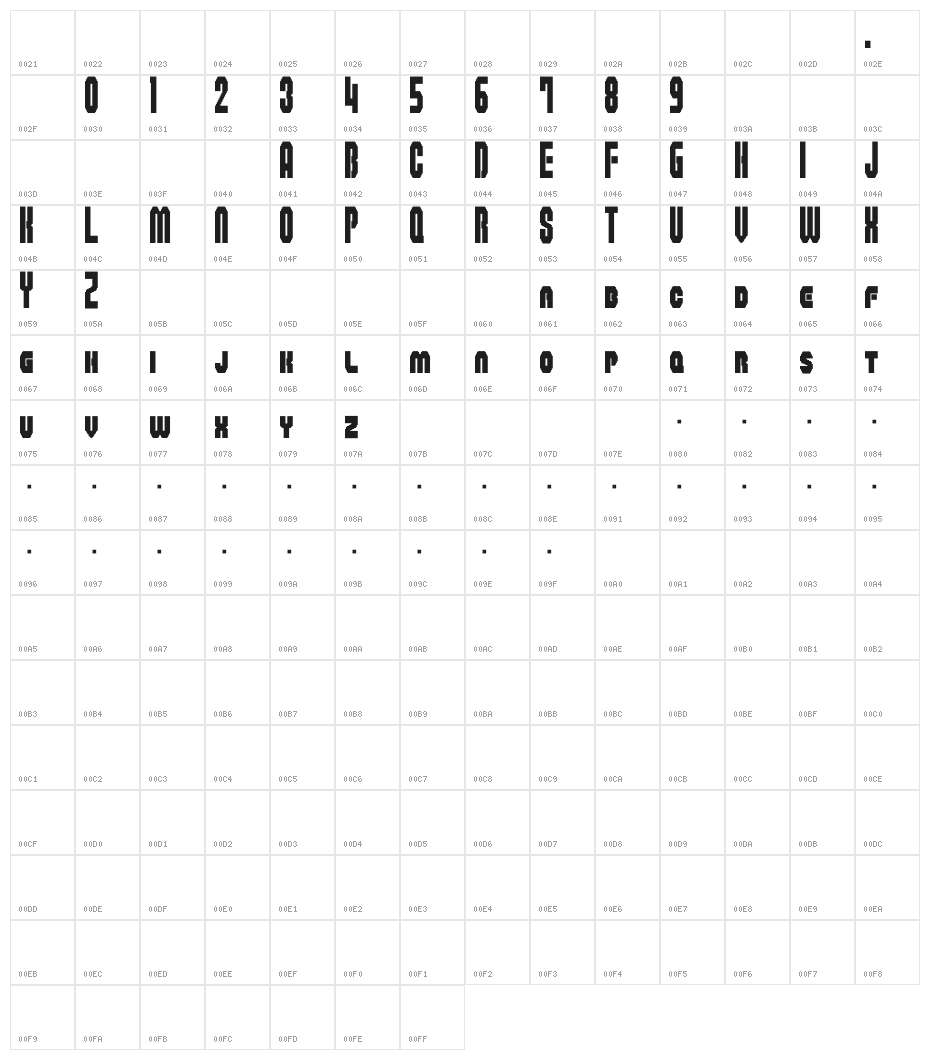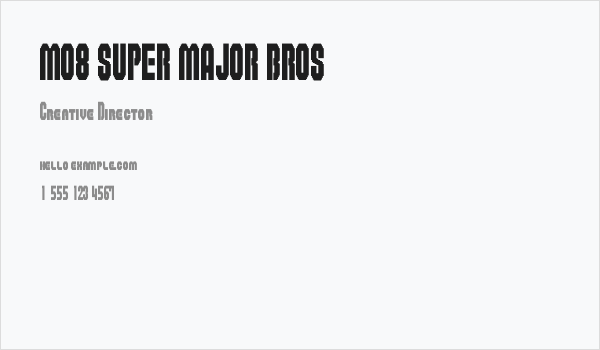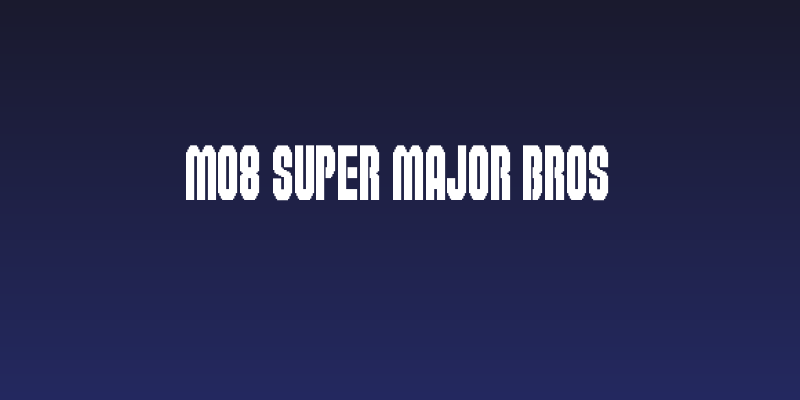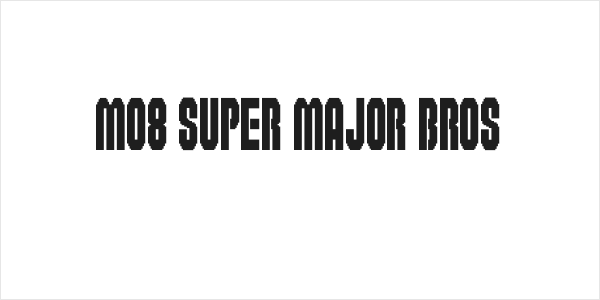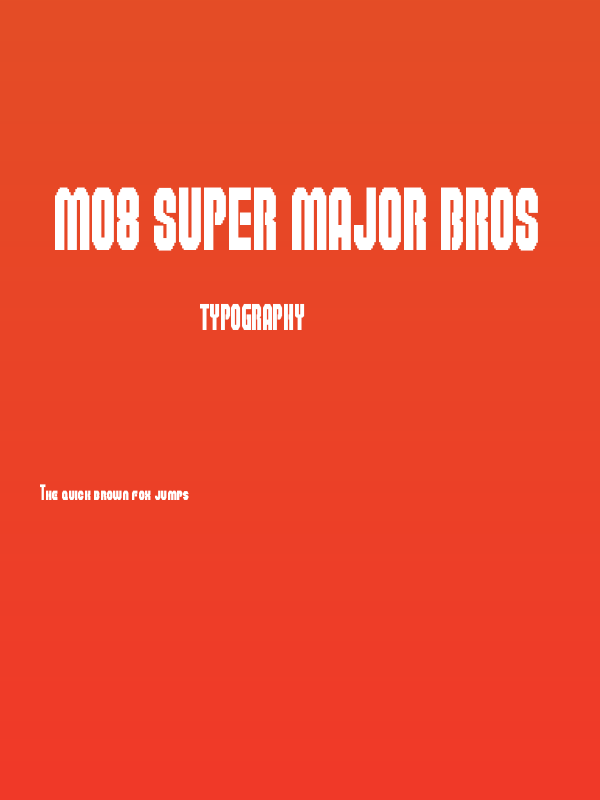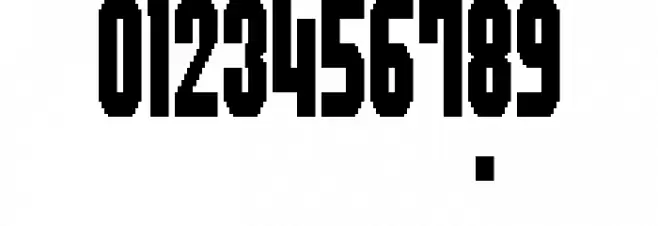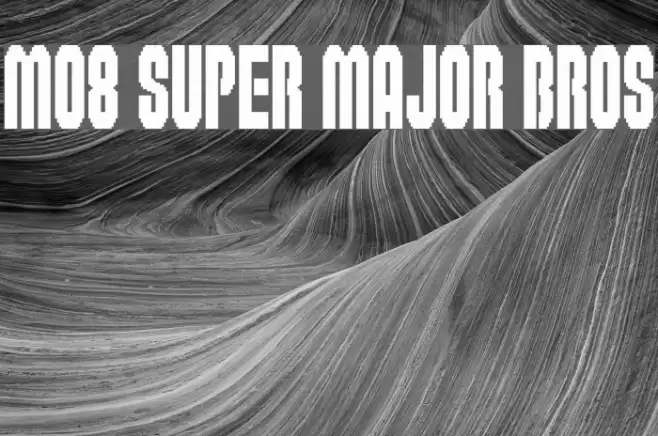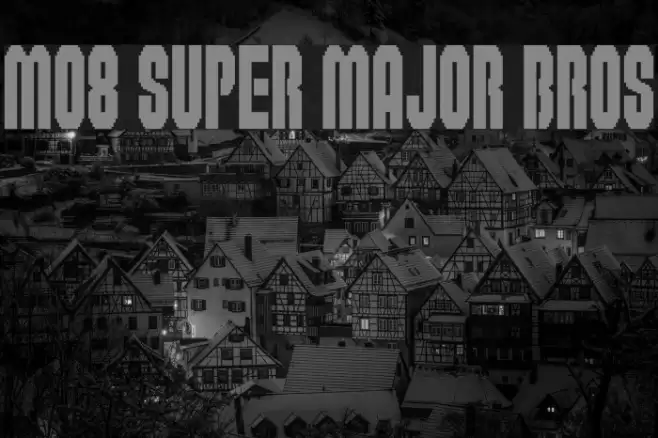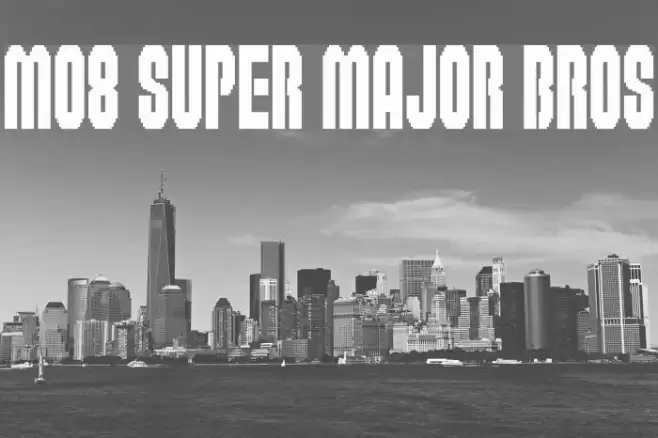
M08_SUPER MAJOR BROS Font
M08_SUPER MAJOR BROS Description
This font features a bold, blocky design with a distinctly pixelated appearance, reminiscent of retro video game graphics. The characters are uniformly wide, creating a monospaced effect that emphasizes its geometric structure. The uppercase letters are particularly striking, with sharp angles and a consistent height that adds to the font's imposing presence. The lowercase letters maintain the same pixelated style, ensuring a cohesive look across all text. Numbers and special characters follow the same design principles, making them easily recognizable and visually consistent. This font's unique style is both nostalgic and modern, making it suitable for projects that aim to capture a retro aesthetic while maintaining clarity and readability.
| Overall Style | Retro, Modern |
| Proposed Projects | Ideal for video game designs, retro-themed posters, digital art, and branding that seeks a nostalgic touch. |